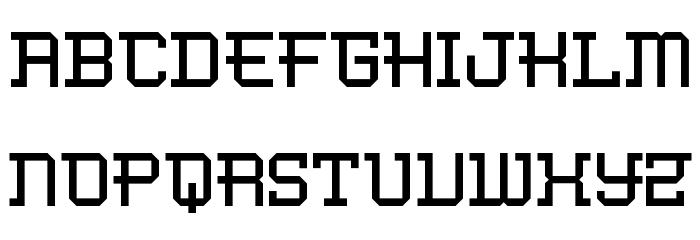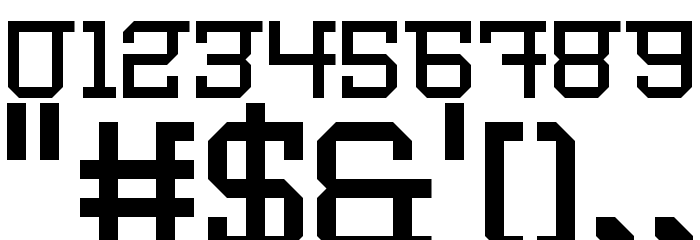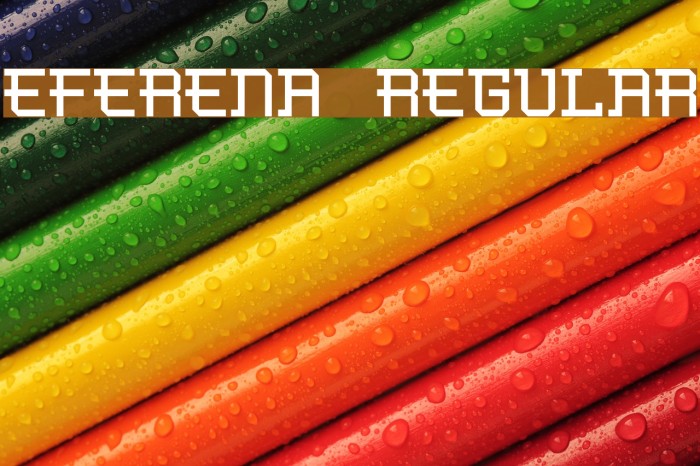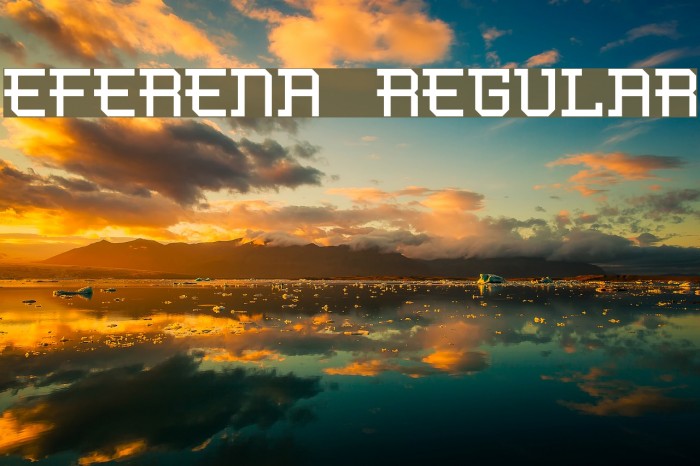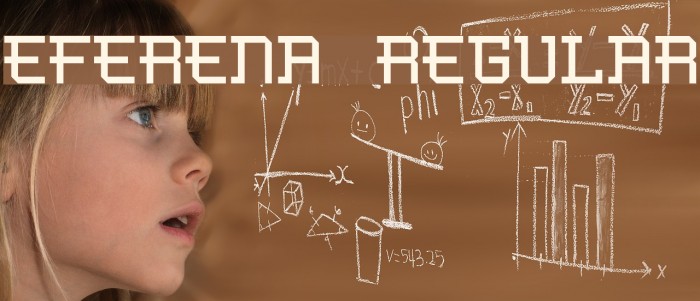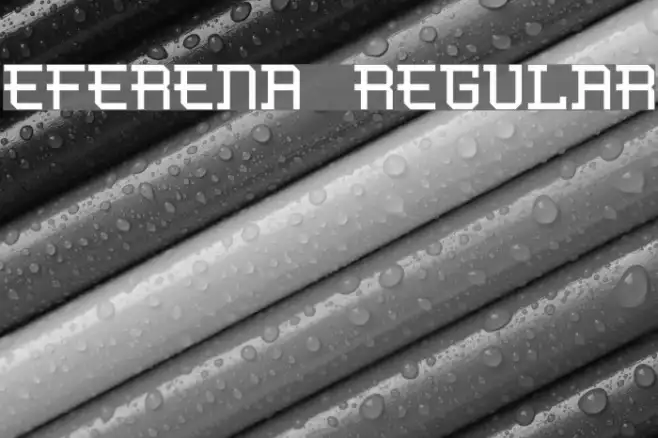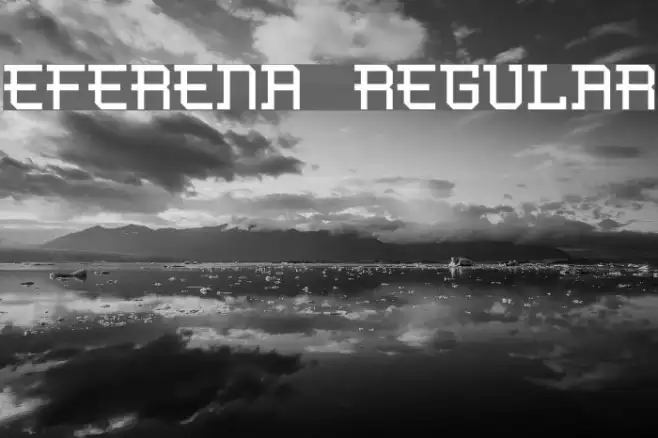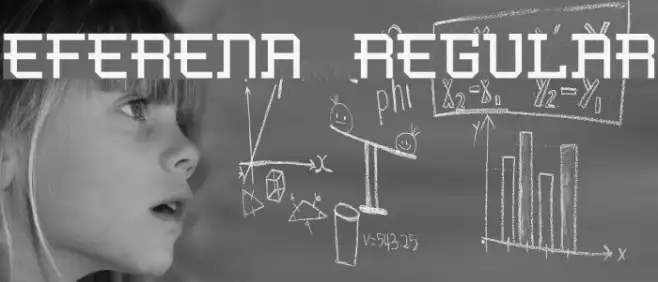
Eferena Regular Font
This font features a bold, geometric design with a strong emphasis on straight lines and right angles. The characters are constructed with a consistent stroke width, giving it a monospaced appearance. The overall style is reminiscent of digital or pixelated fonts, making it suitable for modern and tech-oriented designs. The uppercase letters are uniform in height, and the numbers follow the same structured pattern. Special characters are designed to match the bold and angular aesthetic, ensuring a cohesive look across all glyphs.
A bold, geometric font with a digital, monospaced appearance.
- Proposed Projects: Ideal for tech branding, digital interfaces, video game design, and futuristic posters.